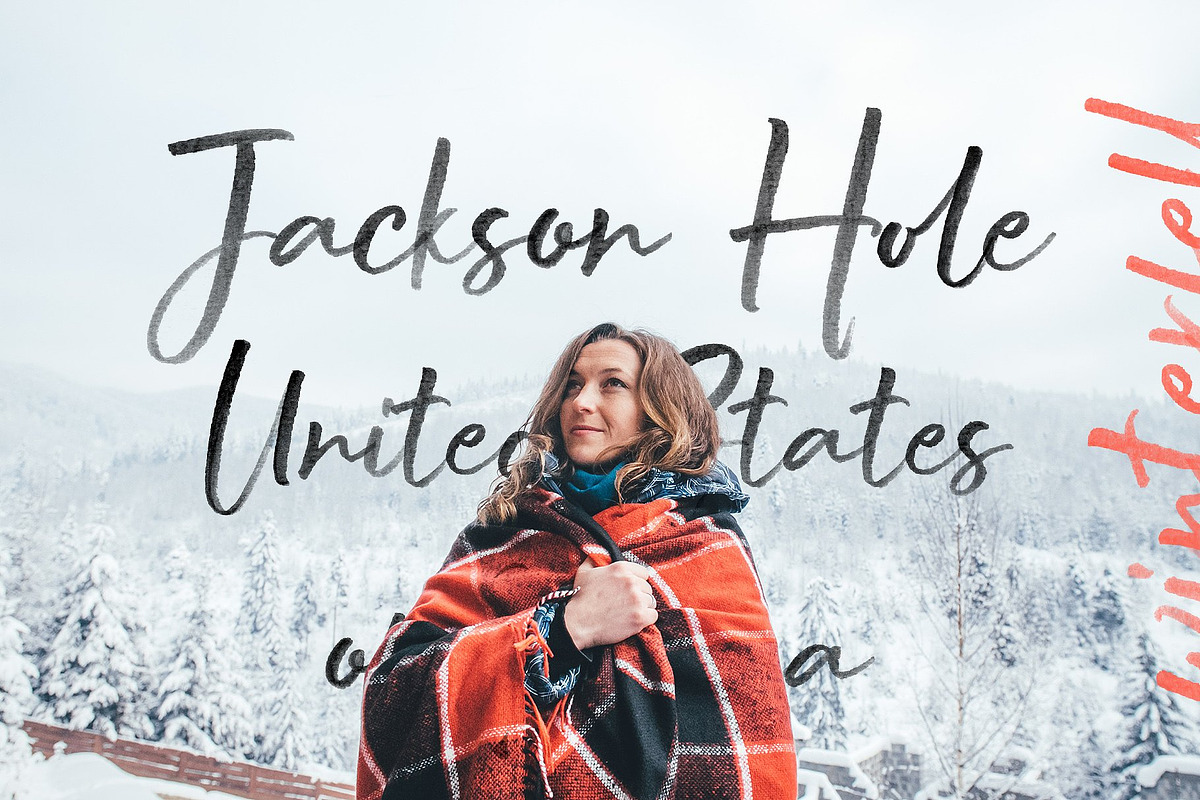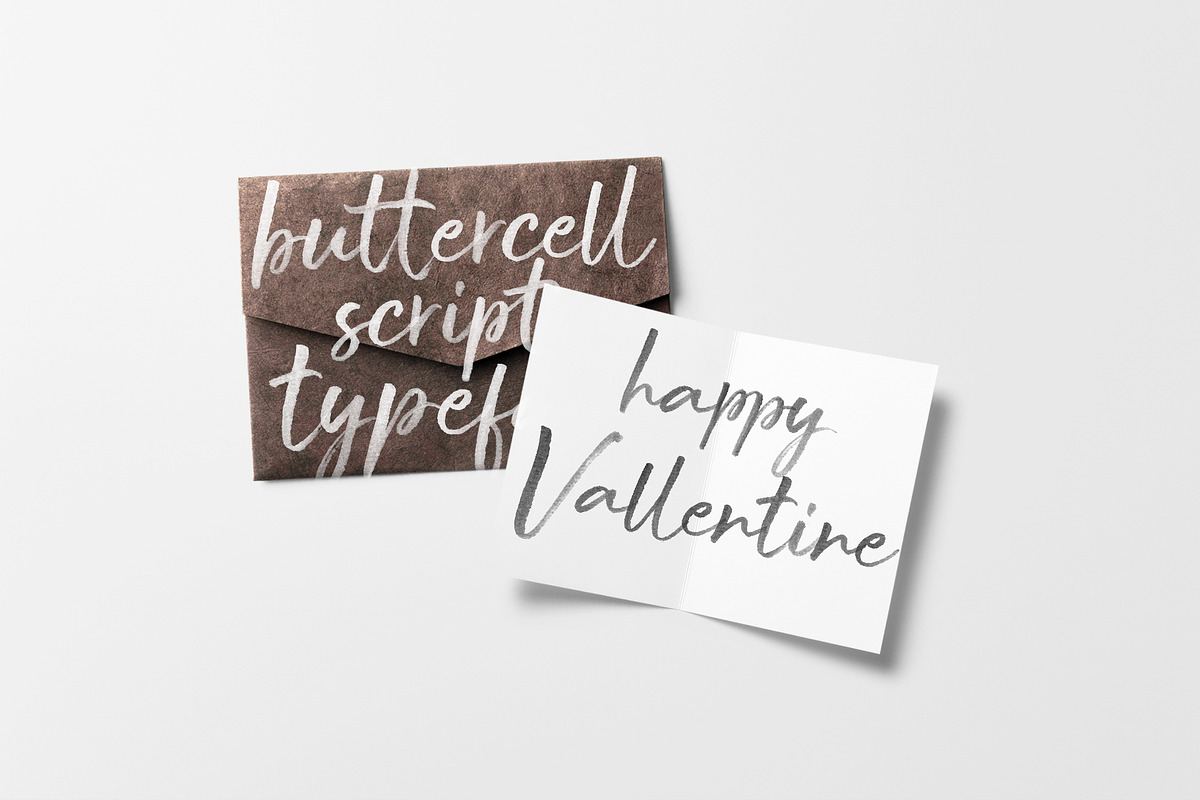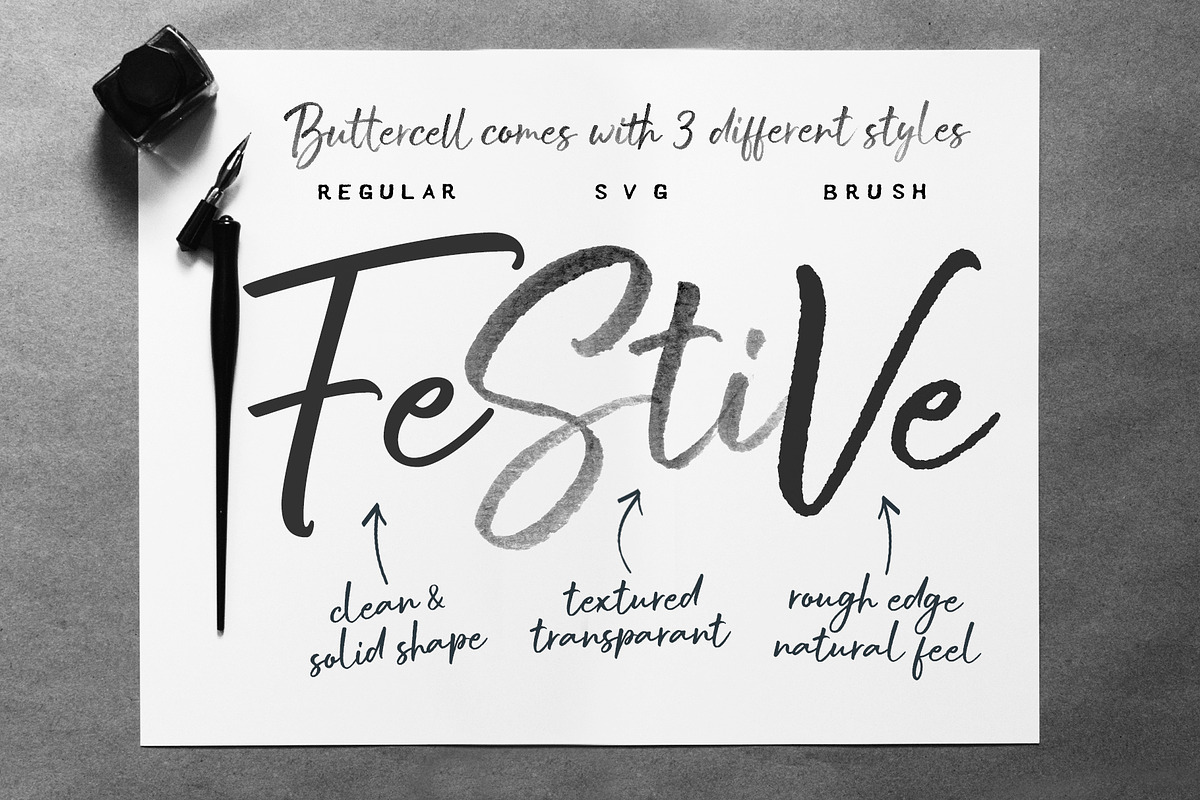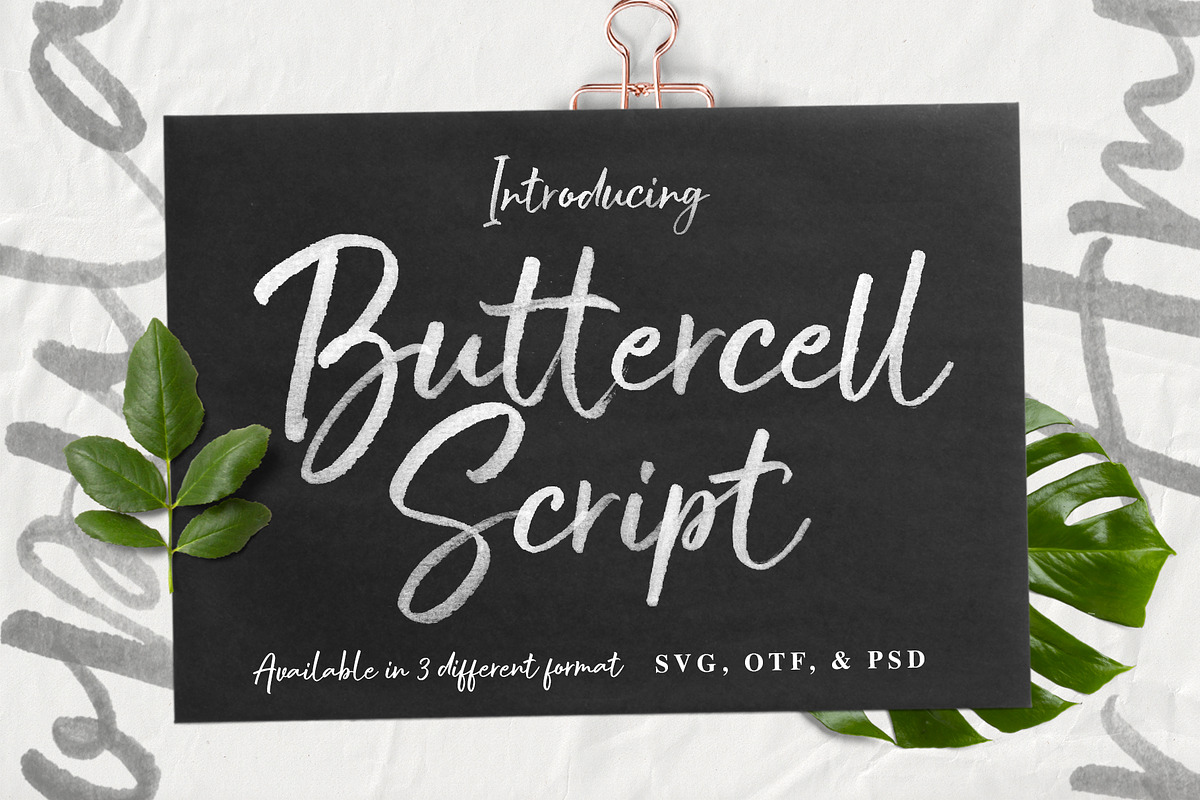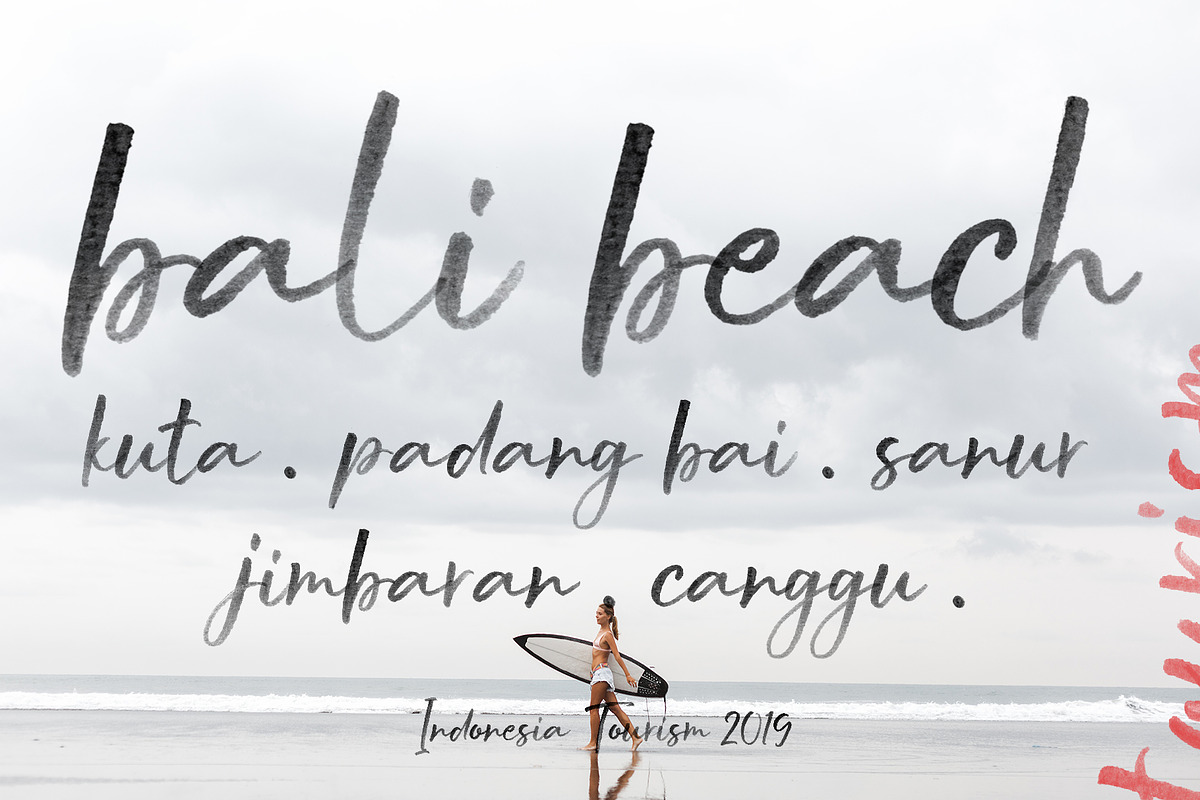
Buttercell SVG Brush Font
Introducing Buttercell Script + SVG Font
Buttercell Script is a hand brush script font available in Standard OpenType and Opentype SVG Font, created on watercolor papers with watercolor ink to get the natural texture and perfect shape like a real hand-lettering style on real papers.
Buttercell comes with 3 different styles:
- Buttercell Script • is a clean version of this font, with a strong line and less node this style is well-designed typeface and ready to use in any computer software.
- Buttercell Brush • is a rough edge version made in Standart OpenType format this typeface give you a strong character of brush lettering style.
- Buttercell SVG • is an OpenType SVG font made for you that wanted a natural shape and texture of the real hand-lettering font. This font comes with some ligature to let you customize your designs.
Why Buttercell SVG Brush Font is worth a look
Buttercell SVG Brush Font by Wacaksara Co. fits naturally into Branding, posters, packaging, typography.